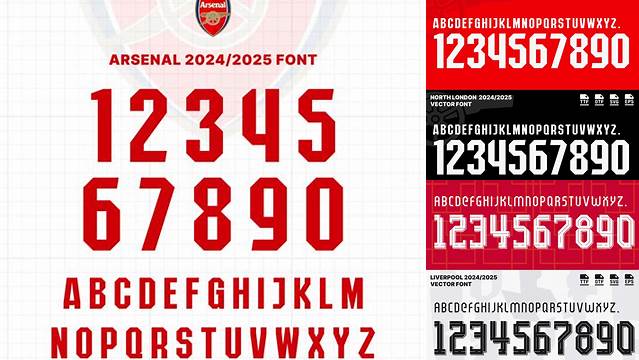
Guys, let's dive into the world of typography and explore the Arsenal Font, a typeface that's become synonymous with the iconic football club. The Arsenal Font isn't just a set of letters; it's a visual representation of the club's identity, history, and spirit. It's the font you see emblazoned on jerseys, banners, and official merchandise, instantly recognizable to fans around the globe. This font's impact extends beyond the stadium, influencing how the club communicates its brand across various platforms. Understanding the significance of the Arsenal Font allows us to appreciate the thought and design that goes into creating a visual identity for a major sporting institution.
The Arsenal Font serves as a crucial element in branding, acting as a visual shorthand for the club. Think about it: when you see those distinctive characters, you immediately associate them with Arsenal Football Club. This recognition is invaluable in a world saturated with visual information. The font contributes significantly to the club's marketability, making it instantly recognizable and appealing to fans and potential sponsors alike. The consistency in its application across various media reinforces the club's image and helps build a strong, cohesive brand identity. Furthermore, the Arsenal Font often evokes emotional connections for fans. It's the font of victory, of memorable moments, and of shared experiences. This emotional resonance further enhances the font's importance in the overall brand strategy.
Arsenal's branding strategy leverages the font to create a sense of unity and belonging among its supporters. When fans wear jerseys with the Arsenal Font, they are not just displaying their allegiance; they are participating in a visual language that connects them to the club and its history. The font becomes a symbol of pride and passion, fostering a sense of community among fans worldwide. This sense of belonging is a powerful driver of fan engagement and loyalty. The font also plays a crucial role in the club's marketing and promotional efforts. Its consistent use across advertising campaigns, social media, and other communication channels helps to reinforce the Arsenal brand and attract new fans. The visual appeal of the Arsenal Font can make marketing materials more eye-catching and memorable, contributing to the overall success of the club's promotional activities.
So, what exactly is the Arsenal Font? Well, to break it down, it's not just one single font but often refers to a specific typeface used for player names and numbers on their jerseys, as well as for other official club branding. The exact font has evolved over the years, with different variations appearing in different seasons. Typically, it's a bold, modern typeface designed for high visibility and impact, ensuring that names and numbers are easily readable both on the field and on television. Understanding the characteristics of the Arsenal Font helps us appreciate its functionality and aesthetic appeal.
The design elements of the Arsenal Font are carefully considered to align with the club's overall image. The font often features strong, geometric shapes that convey a sense of power and precision, qualities that are highly valued in football. The boldness of the typeface ensures that it stands out prominently on the jersey, even from a distance. The spacing between letters and numbers is also crucial, ensuring legibility and a clean, professional look. Over the years, the Arsenal Font has seen subtle modifications to keep it fresh and contemporary while maintaining its core identity. These updates reflect the evolving trends in typography and branding, ensuring that the font remains relevant and visually appealing.
Different variations of the Arsenal Font have been used throughout the club's history, each with its unique characteristics. Some versions may feature rounded edges for a softer look, while others may have sharper angles to convey a more aggressive feel. These variations often coincide with changes in the club's kit design or branding strategy. For example, a new font might be introduced to celebrate a special anniversary or to align with a new sponsorship deal. Keeping track of these variations can be a fun way for fans to engage with the club's history and visual identity. The evolution of the Arsenal Font also highlights the importance of typography in sports branding. It demonstrates how a simple typeface can become an integral part of a club's identity, evoking emotions and memories for fans around the world. The font is more than just a practical element; it's a symbol of the club's heritage and aspirations.
Identifying the official Arsenal Font can sometimes be tricky because, as we've discussed, it changes! However, there are some key characteristics and resources you can use to make sure you're looking at the right typeface. One of the easiest ways is to check the official Arsenal website or reputable football kit websites. These sources often provide detailed information about the fonts used for each season's jerseys and other merchandise. Pay attention to the subtle details, such as the shape of the numbers and letters, the spacing, and the overall boldness of the font.
Another method for identifying the Arsenal Font is to compare it with known examples from previous seasons. There are numerous online resources, including fan forums and design blogs, that archive the various fonts used by the club over the years. By comparing the font in question with these examples, you can often narrow down the possibilities and identify the correct typeface. It's also helpful to look for official branding guidelines or style guides released by the club. These documents often specify the exact fonts to be used in different contexts, ensuring consistency across all communications. These guidelines can provide valuable insights into the club's visual identity and help you accurately identify the official Arsenal Font.
Visual cues also play a significant role in identifying the Arsenal Font. Look for distinctive features, such as a unique curve in a letter or a specific angle in a number. These subtle details can be telltale signs that you've found the right font. Pay attention to the overall style and feel of the typeface. Does it convey a sense of modernity, tradition, or power? The Arsenal Font typically reflects the club's values and image, so understanding these aspects can help you in your identification efforts. Additionally, consider the context in which the font is being used. Is it on a jersey, a banner, or a website? The application of the font can sometimes provide clues about its authenticity and official status. By combining these various methods and resources, you can confidently identify the official Arsenal Font and appreciate its role in the club's visual identity.
Looking ahead to 2026-23, predicting the exact Arsenal Font is a bit of guesswork, but we can make some educated speculations! Football clubs often update their fonts to coincide with new kit designs or branding initiatives. Therefore, it's likely that the Arsenal Font for 2026-23 will feature some modern updates while still maintaining the club's core identity. Think about it – the font needs to look good on the pitch, on merchandise, and in digital media, so versatility is key. We can expect the Arsenal font 2026-23 to have a fresh and contemporary look.
In conclusion, the Arsenal Font is more than just a typeface; it's a symbol of the club's identity, history, and passion. From its evolution over the years to its impact on branding and fan engagement, the Arsenal Font plays a crucial role in the club's visual presence. While accessing the exact official font for free can be challenging, there are numerous legitimate alternatives that capture the essence of the Arsenal Font. By understanding the characteristics of the font and following best practices for its usage, you can effectively incorporate it into your own projects and designs. The enduring legacy of the Arsenal Font serves as a testament to the power of typography in shaping a brand's identity and connecting with its audience. So go ahead, explore the world of Arsenal Fonts and let your creativity soar!